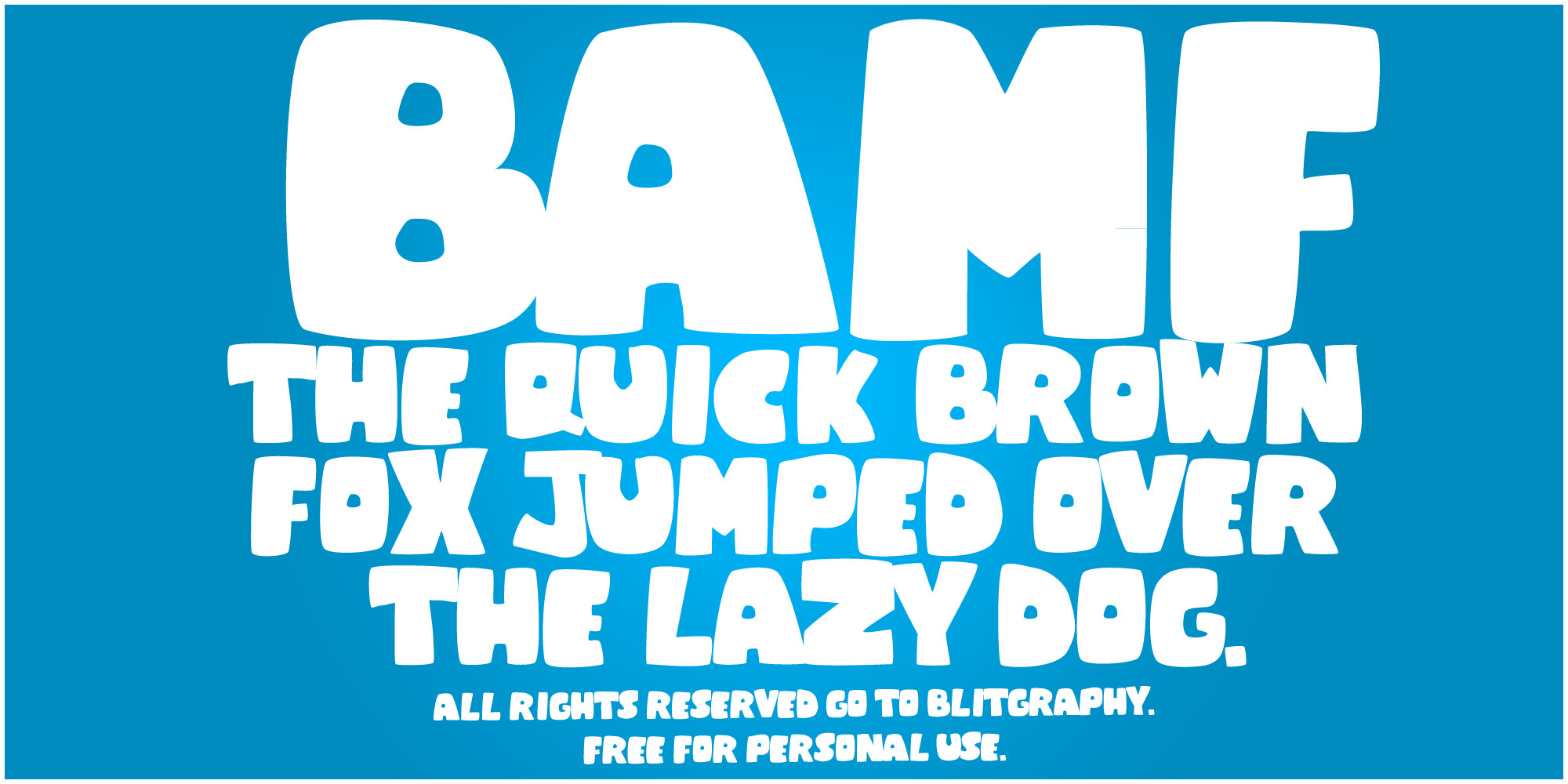
The quick brown fox jumps over the lazy dog.
If you write 'jumped', there's no S in the sentence. Just pointing out
Yes, figured that out after I posted it.
This is a very nice font, though I would like it even more if all the characters would have the same height. Letters like the "s" pop out little bit to much I think – but that could be considered a personal opinion. Also the tracking of the minuscels seam a bit to much. But all in all its a very nice font!